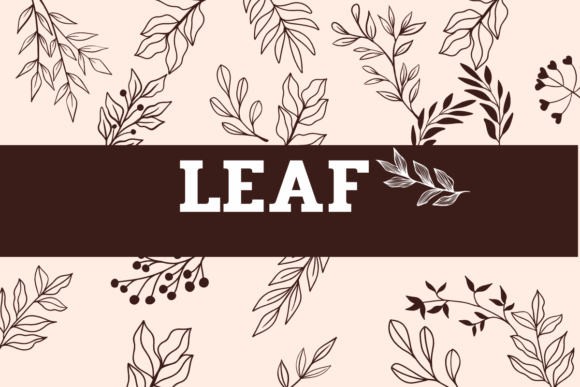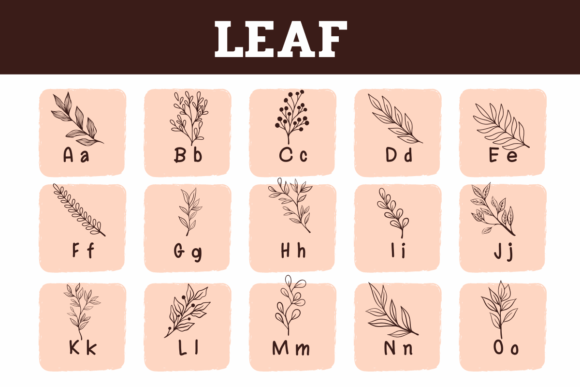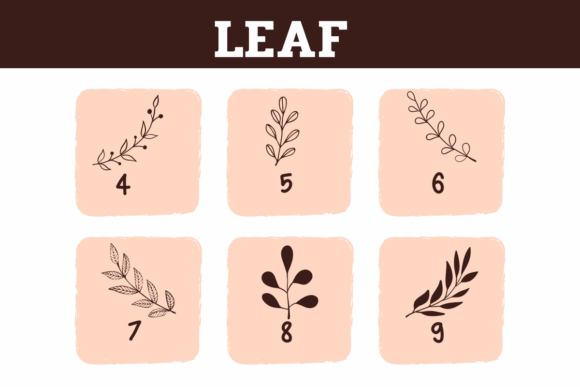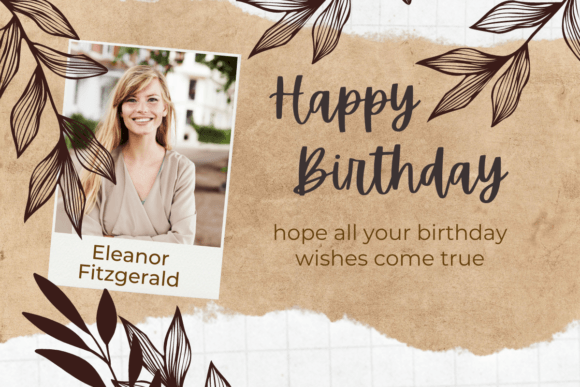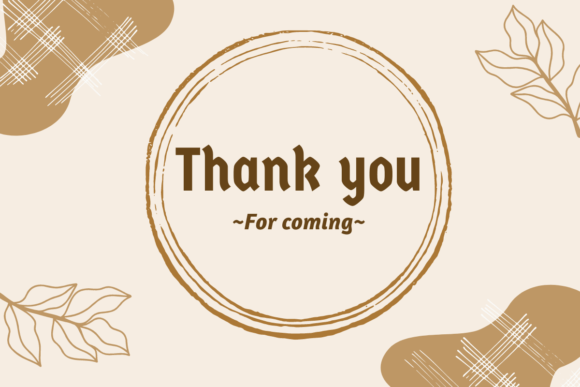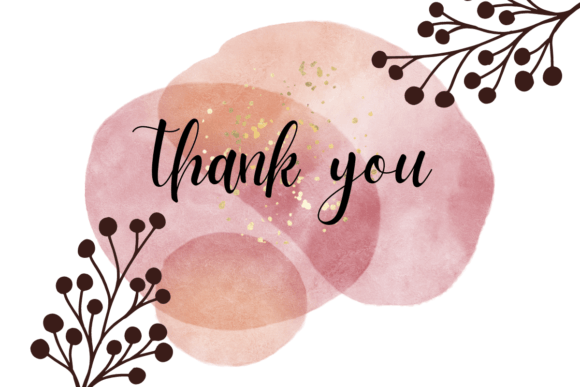
Leaf Font
Leaf is a lovely and cute dingbats font. This font can enhance your creative projects such as wedding invitations, DIY, crafts, decorations, logos, and many other creative ideas.